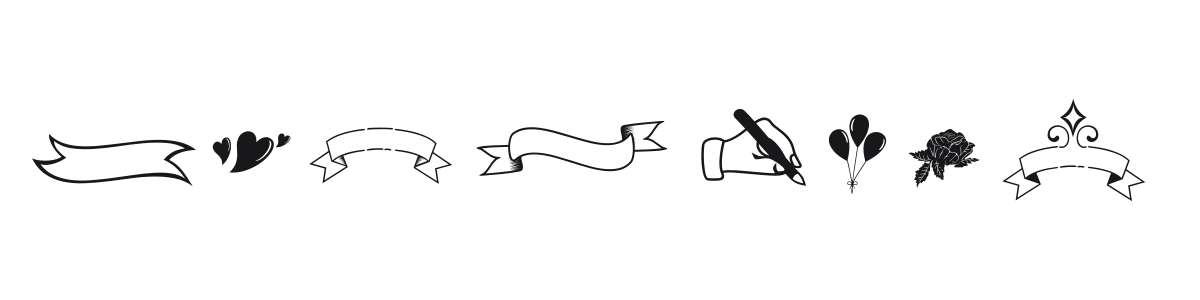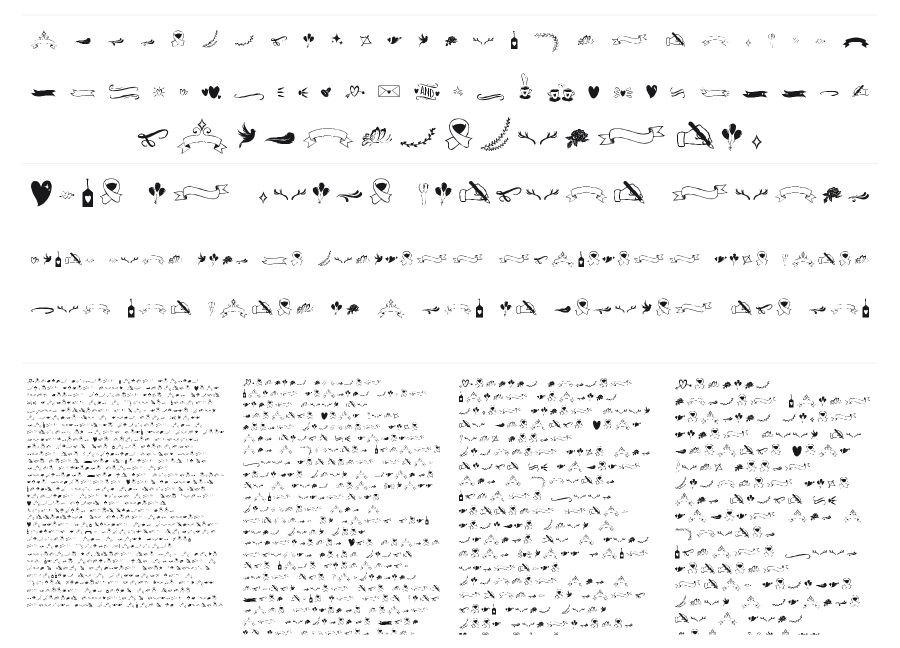
Blustina
Blustina is a decorative dingbat font from Romie Creative packed with romantic ornamental symbols: ribbons, banners, birds, botanicals, antlers, roses, and more. Each glyph is rendered in a clean, thin silhouette style that suits wedding stationery, boutique packaging, and feminine branding. The set reads as cohesive and versatile, covering a wide range of celebratory and nature-inspired motifs.